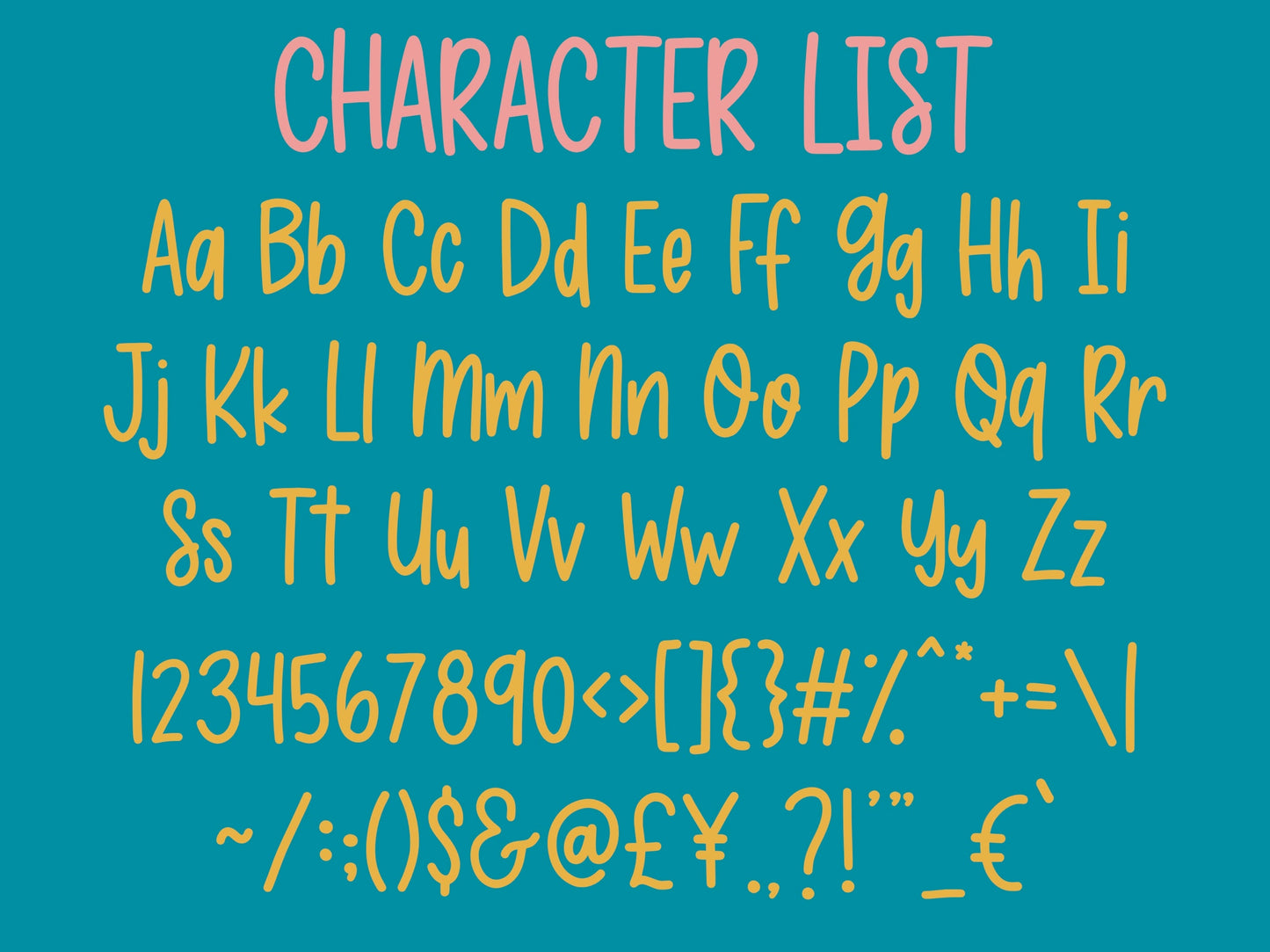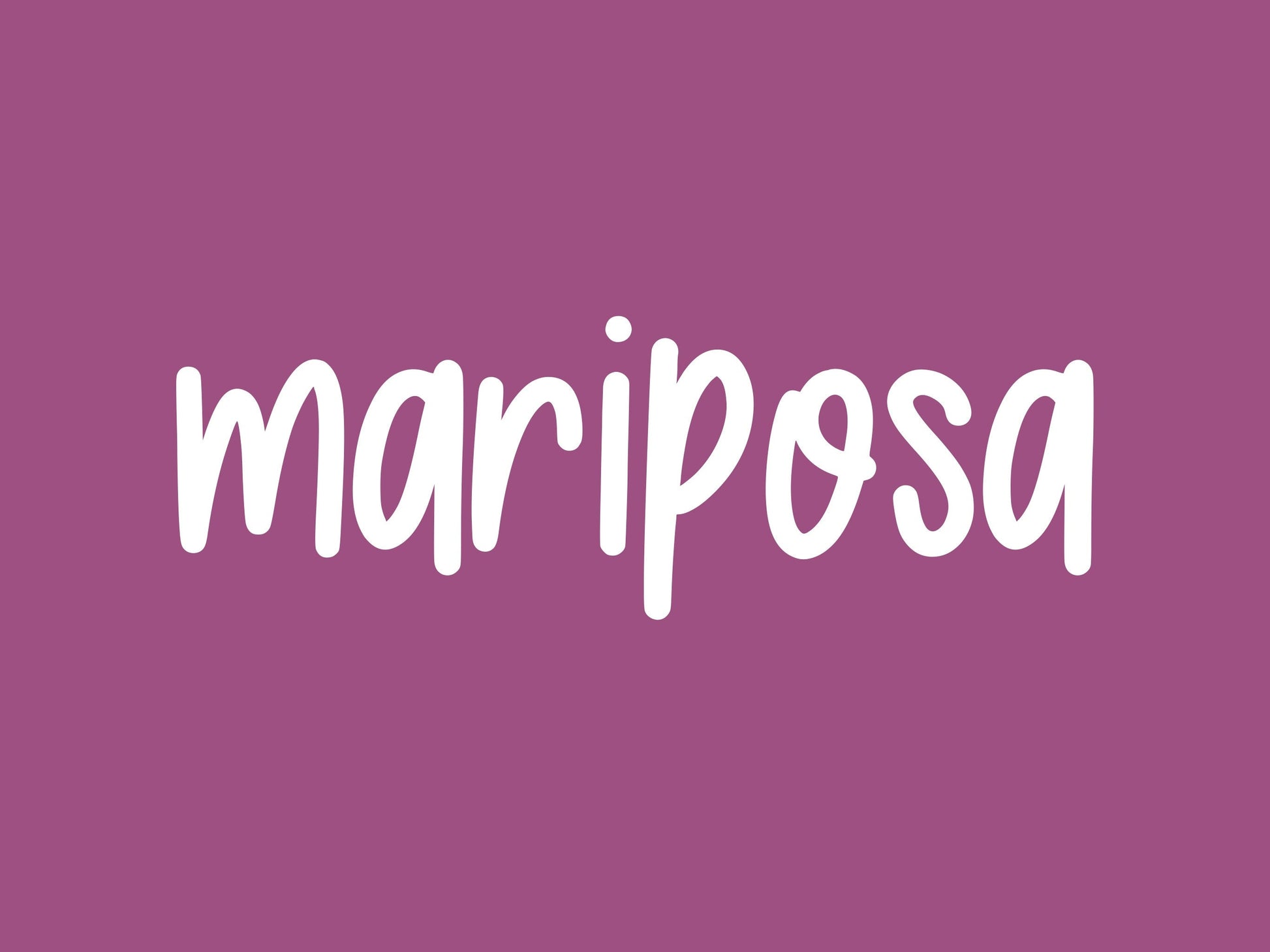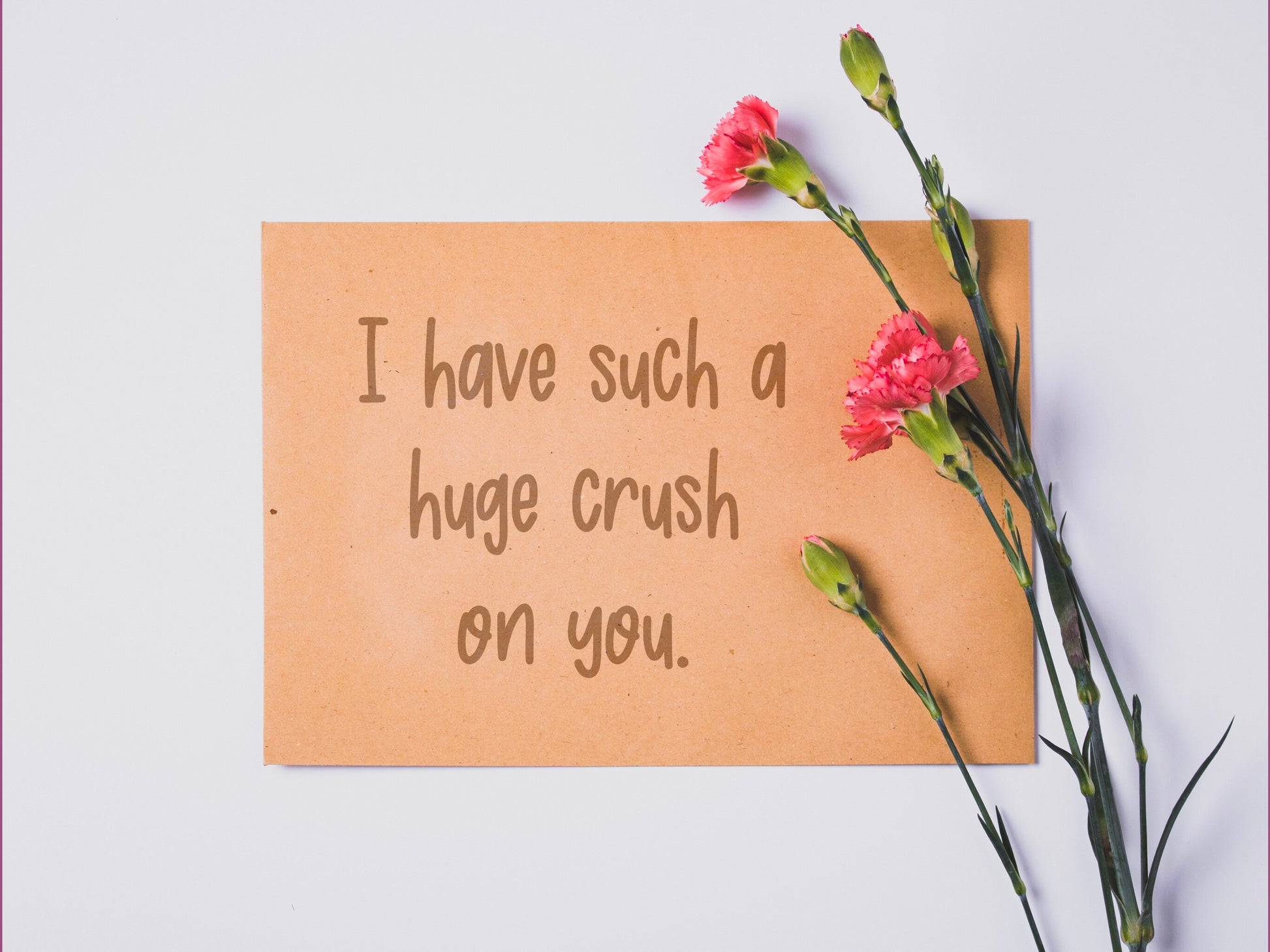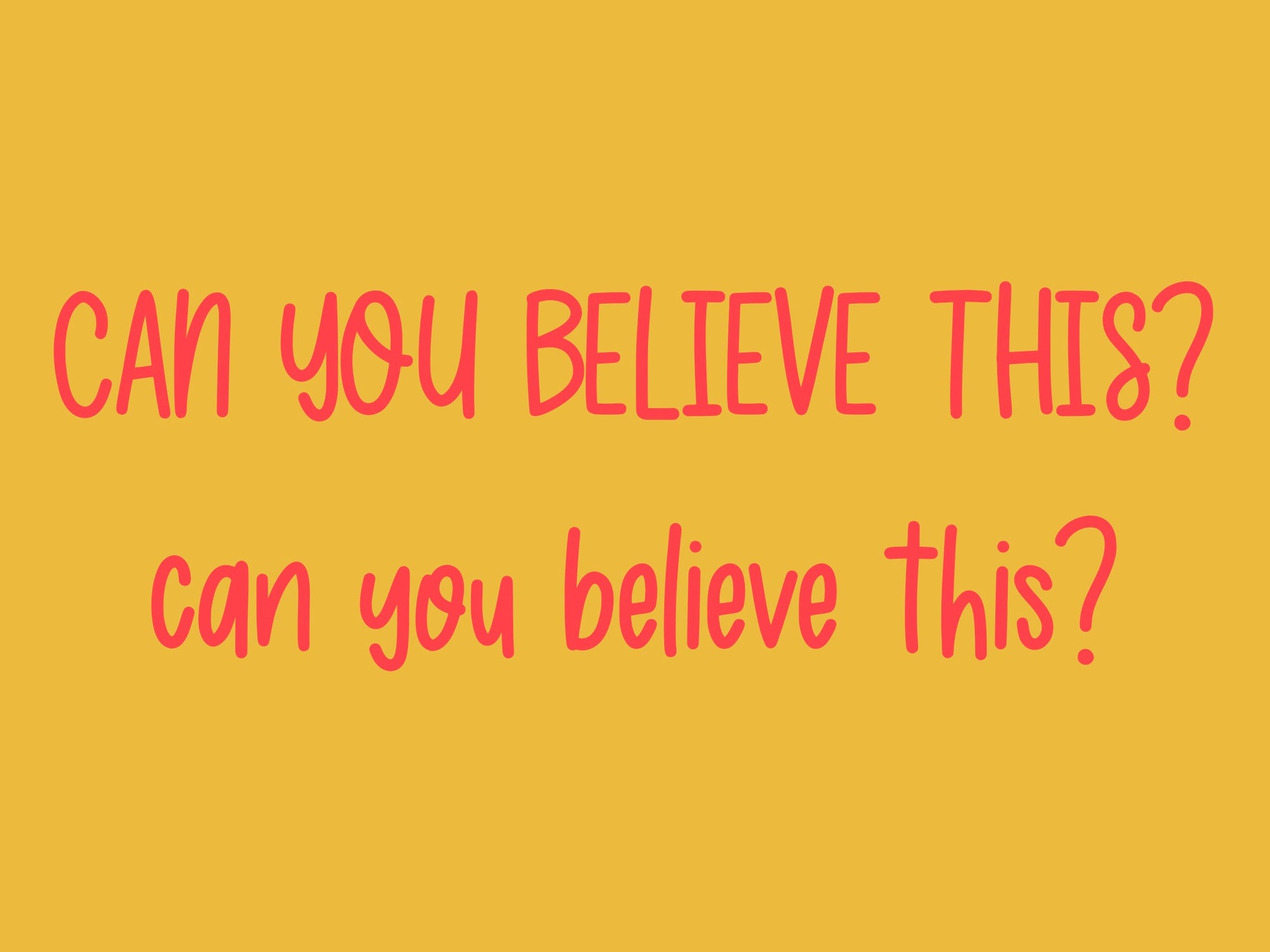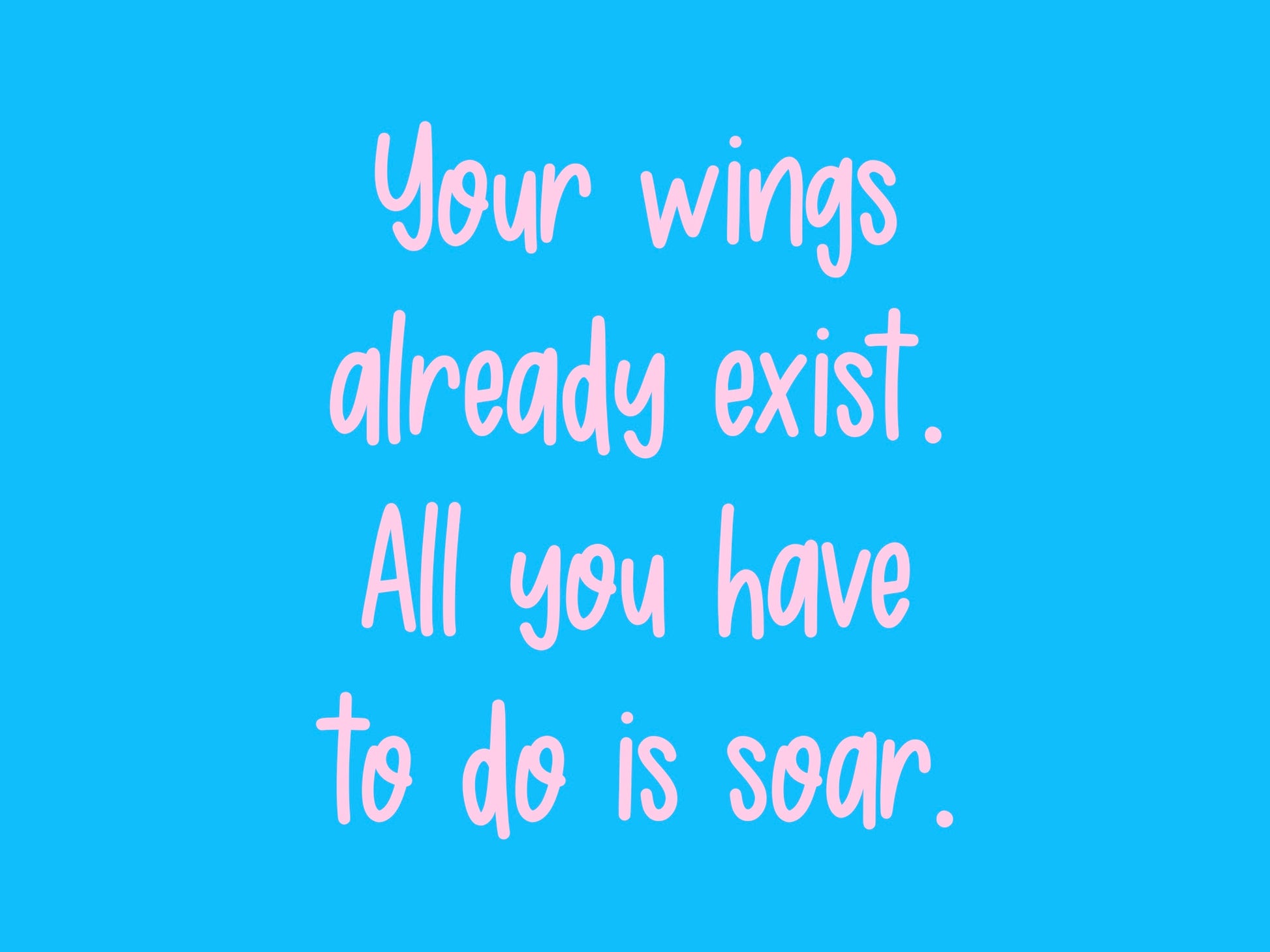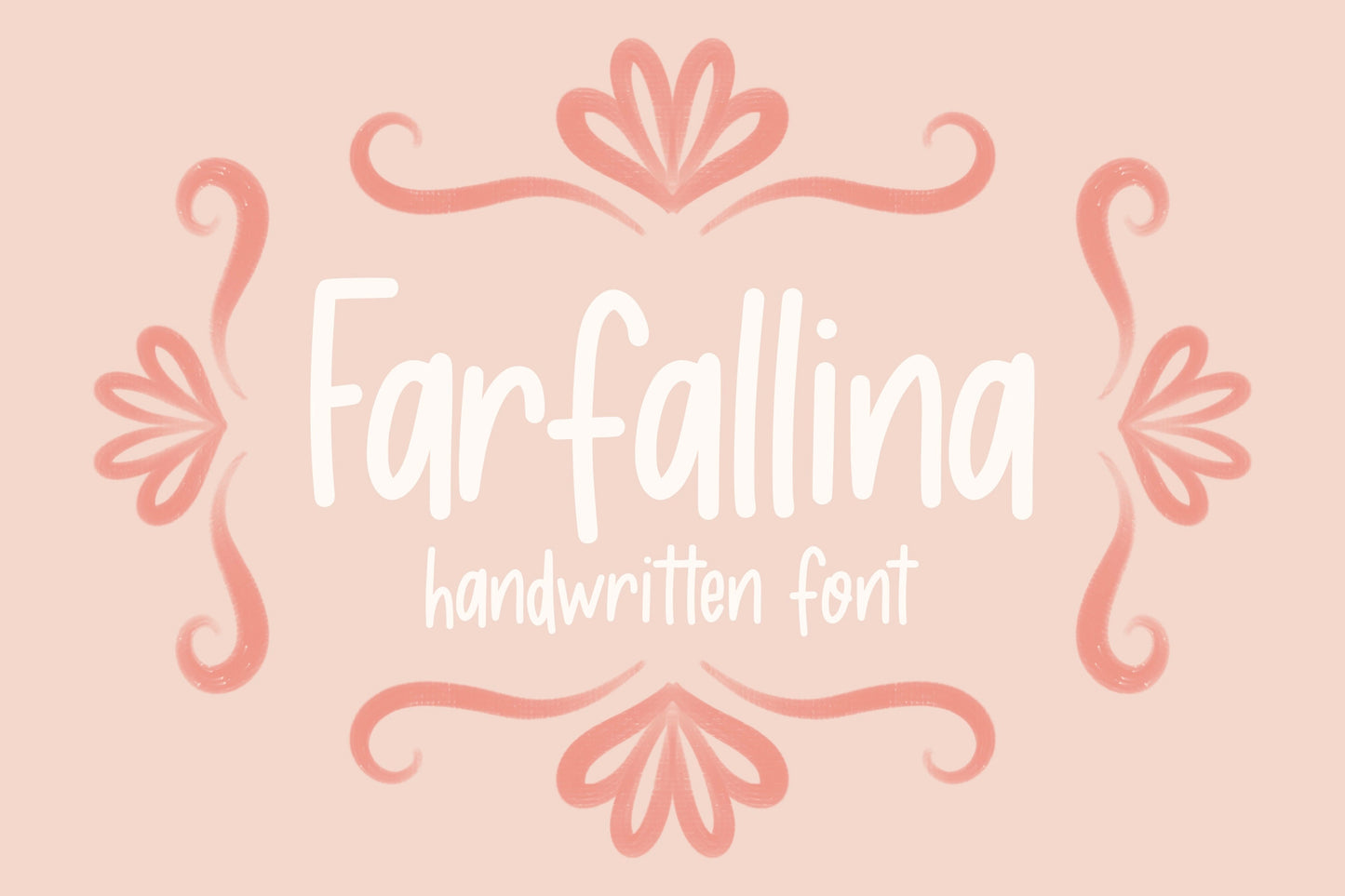
Farfallina Handwritten Font
This is my Farfallina handwritten/hand drawn font. This unique font will add a fun, quirky, handmade touch to your design!